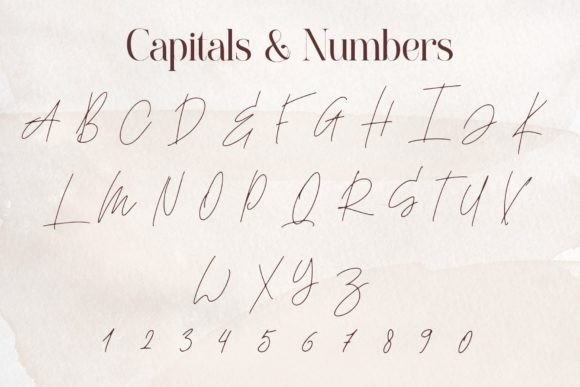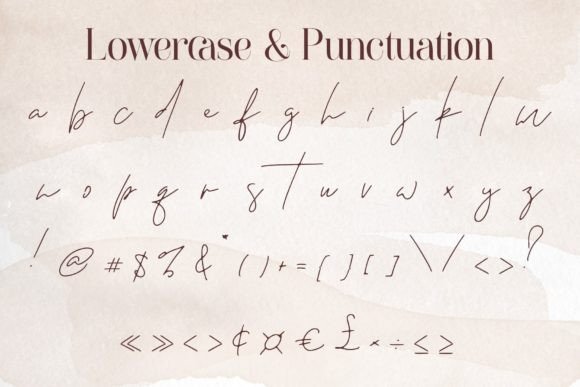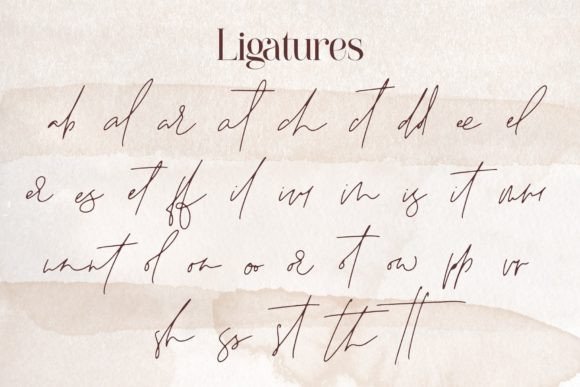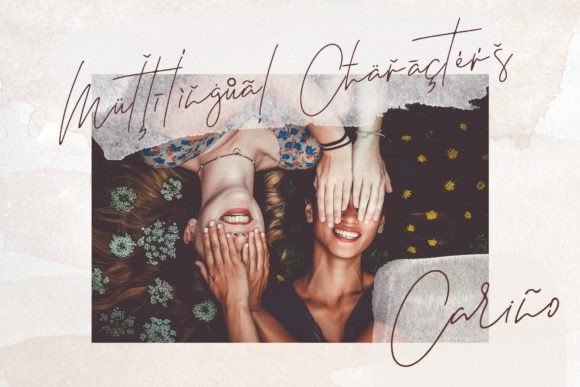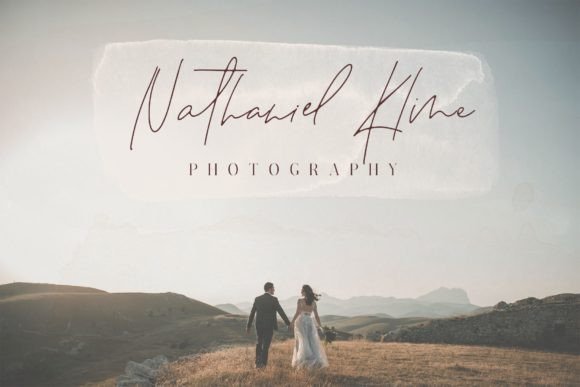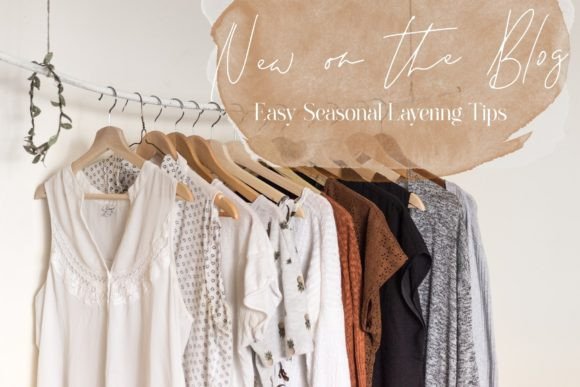
Introduction to Montero Font
Remember that moment when you’re working on a creative project, and you’re trying to find the perfect font to match your vision? You’ve searched high and low, but nothing seems to fit just right. That’s where the Montero Font comes in – a hand-drawn monoline signature script that’s sure to elevate your design to the next level.
As a designer, you know how crucial it is to have access to high-quality design resources. The Montero Font is a valuable addition to any designer’s toolkit, offering a range of features that make it perfect for a variety of projects. With its transparent background, this font is a versatile design resource that can be used to create stunning logos, invitations, and even website headers.
Key Features of Montero Font
- High-quality design suitable for creative projects, offering a unique and modern look.
- Features a transparent background, allowing for seamless integration with any design or background.
- Montero Font is available in 6 styles, including Regular, Italic, Bold, Bold Italic, Condensed, and Condensed Italic.
- Supports a wide range of languages, making it a versatile design solution for global creative projects.
Honest Review: Montero Font
I recently had the chance to work with the Montero Font, and I’m excited to share my thoughts with you. This font is a fantastic addition to any designer’s toolkit, and it’s available as a free download. The high quality of the font makes it perfect for creative projects where you need a sleek and modern look.
Here are some things that work well with the Montero Font:
- ✨ Versatility: The Montero Font is incredibly versatile and can be used in a wide range of applications, from web design to print materials.
- ✨ Customization: The font is highly customizable, allowing you to adjust the weight, style, and even the opacity of the text to suit your needs.
- ✨ Clean design: The Montero Font has a clean and modern design that makes it perfect for use on transparent backgrounds or as the main font for your design project.
- ⚠️ Limited language support: Unfortunately, the Montero Font only supports a limited range of languages, which may be a issue for designers who need to work with multiple languages.
- ⚠️ Not ideal for small text: While the font is great for large text, it may not be the best choice for small text due to its lack of detail.
Overall, I’m really impressed with the Montero Font and I think it’s a great addition to any designer’s toolkit. The high quality and versatility of the font make it perfect for a wide range of creative projects.
Tips for Getting the Most Out of Montero Font
Montero Font is a high-quality design resource that can be used in a variety of creative projects. To get the most out of it, experiment with different font sizes, colors, and styles to find the perfect look for your project. You can also use Montero Font in conjunction with other design elements, such as images and shapes, to create a visually appealing design.
Montero Font is commonly used in a variety of design projects, including logos, business cards, and social media graphics. It is also a popular choice for free download and use in personal projects, such as blog posts and presentations.